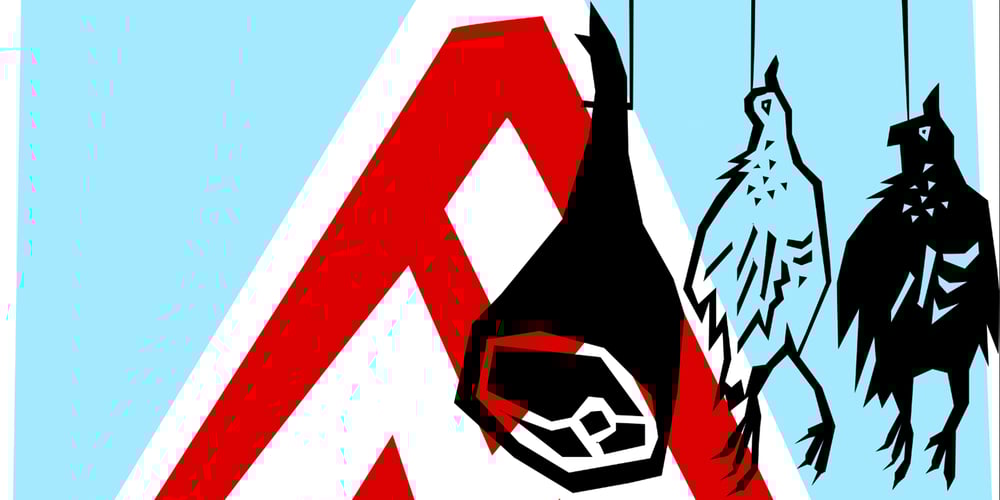
DF Mercat Font Family was designed by Ko Sliggers and published by Dutchfonts. DF Mercat contains 1 styles and family package options. DF Mercat is a tribute to the famous marketplace situated at ‘La Rambla’ in Barcelona’s historic centre. It is a picture font containing over 240 illustrations of fish, crustacean, clams, poultry, game, meat, sausages, herbs, vegetables, fruit, bread, butter, a variety of cheese, wines and spirits, small dishes, drinks (coffee, beer, soft drinks), ice cream, pastry, etc.